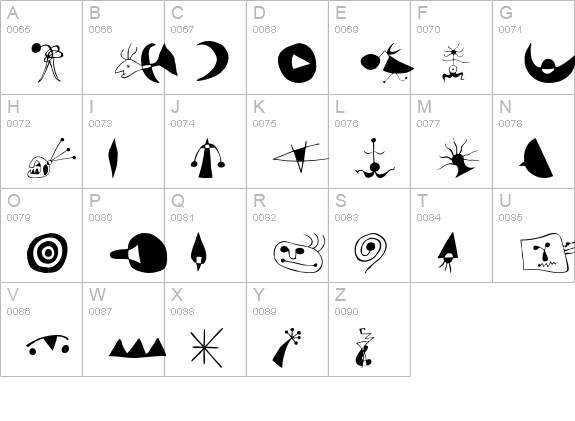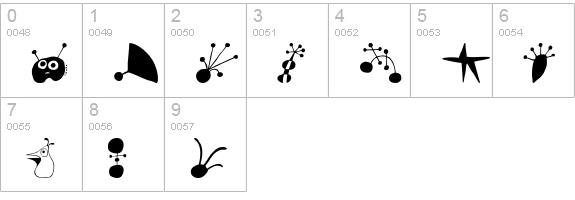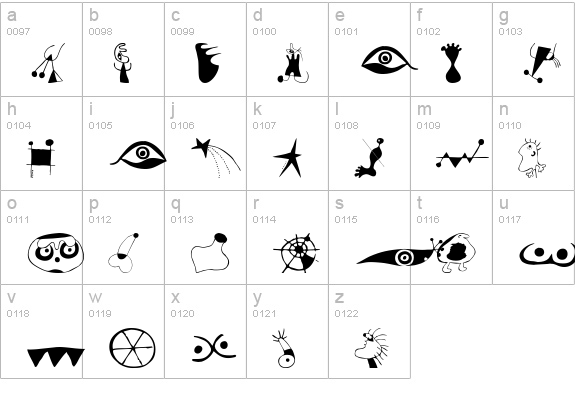
Miro Extras Font Details
Miro Extras is a a versatile and modern font that offers a wide range of decorative elements to enhance your design projects. With a sleek and elegant style, Miro Extras is perfect for adding a touch of sophistication to any creative endeavor. This font includes an array of unique symbols, icons, and ornaments that can be seamlessly integrated into various designs to add flair and visual interest. The best part? Miro Extras is completely free to download at FontsMarket.com! Whether you're working on a graphic design project, branding materials, or any other creative work, Miro Extras is a must-have addition to your font collection. Don't miss out on this fantastic opportunity to elevate your designs with this exquisite font that is now available for free download.